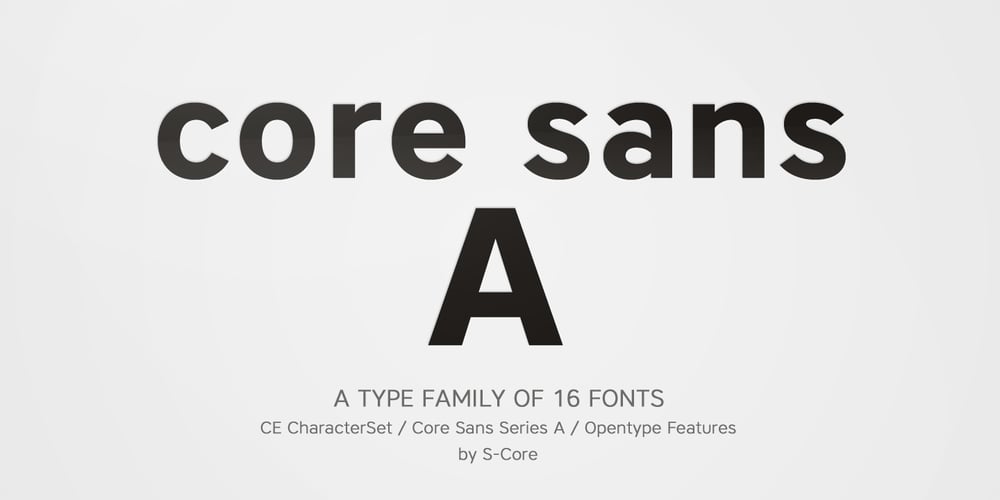
Core Sans A Font Family was designed by Hyun-Seung Lee, Dae-Hoon Hahm, Minjoo Ham and published by S-Core. Core Sans A contains 16 styles and family package options. Core Sans A Family from S-Core is a modern sans-serif typeface that is clean, simple and highly readable. It is a part of the Core Sans Series (Core Sans N SC, Core Sans N, Core Sans NR, Core Sans M and Core Sans G). Letters in this type family are designed with genuine neo-grotesque and neutral shapes without any decorative distractions. The spaces between individual letter forms are precisely adjusted to create the perfect typesetting. Core Sans A family consists of 8 weights (Thin, Extra Light, Light, Regular, Medium, Bold, Extra Bold, Heavy) with their corresponding italics. Core Sans A contains complete Basic Latin, Cyrillic, Central European, Turkish, Baltic character sets. Each font includes proportional figures, tabular figures, numerators, denominators, superscript, scientific inferiors, subscript, fractions and case features. We highly recommend it for use in books, web pages, screen displays, and so on.